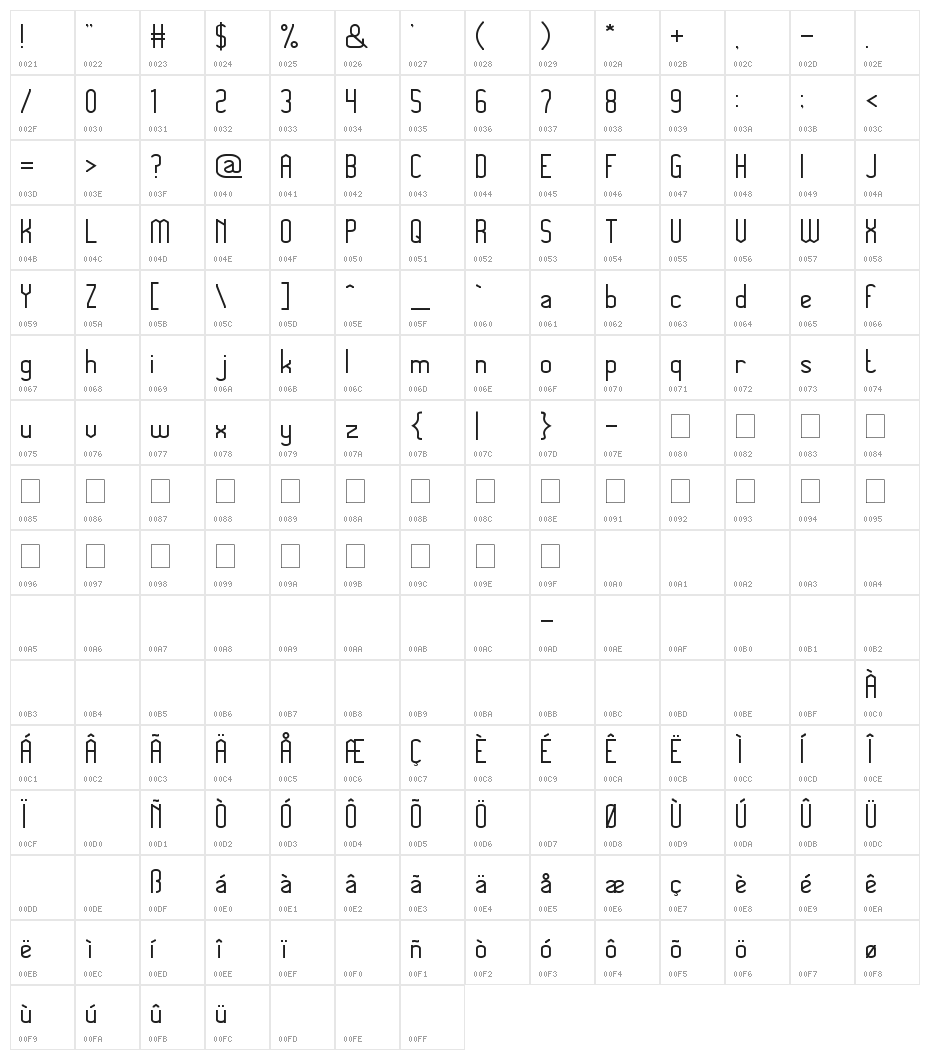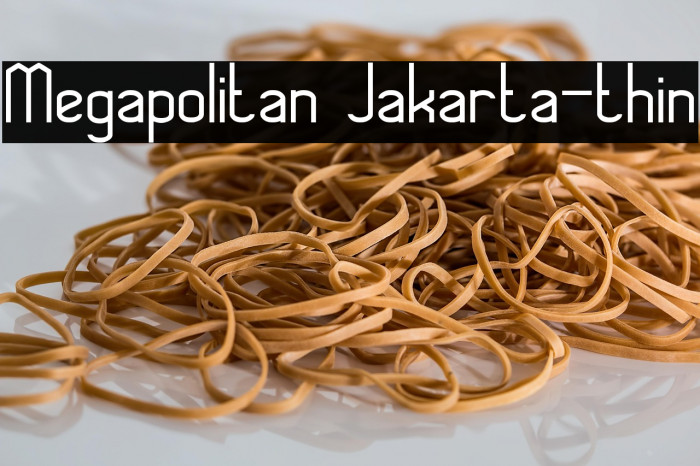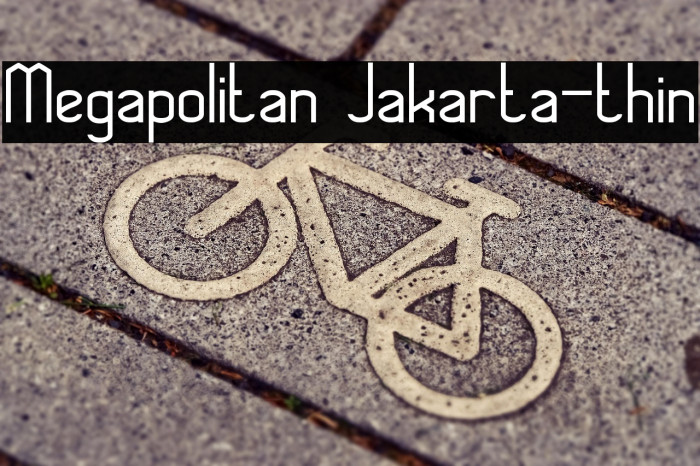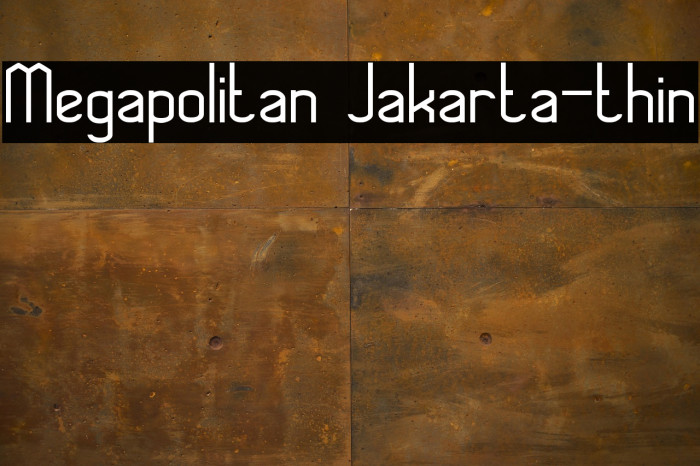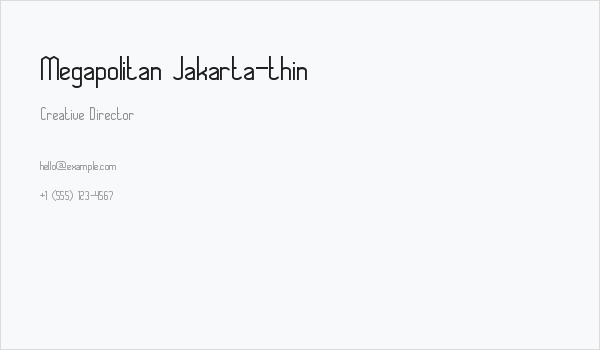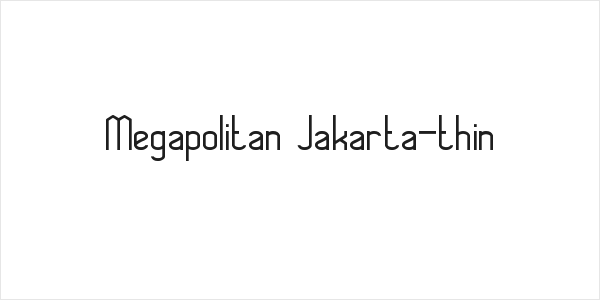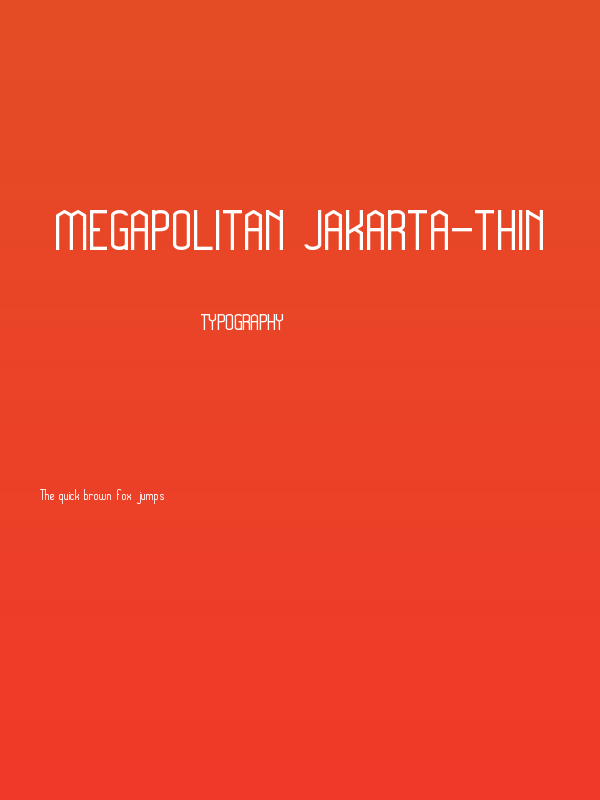
Megapolitan Jakarta-thin Font
Megapolitan Jakarta-thin Description
This font features a geometric and modern design with clean, straight lines and a consistent stroke width. The uppercase letters are tall and narrow, giving a sleek and contemporary appearance. The lowercase letters maintain a similar style, with rounded edges that soften the overall look. The numerals are distinct and easy to read, matching the font's overall aesthetic. Special characters are well-integrated, maintaining the font's uniformity and style. This font's thin weight and structured form make it suitable for various design applications.
| Use Case | Headlines, Logos, Digital interfaces |
| Proposed Projects | Ideal for branding, editorial design, and digital interfaces where a modern and sleek appearance is desired. |